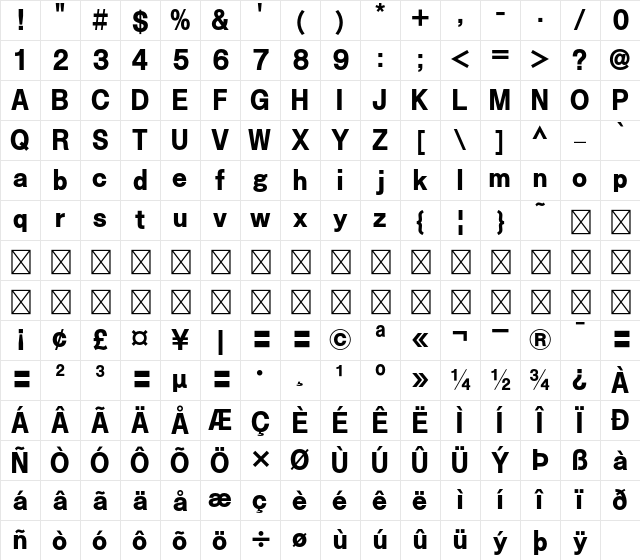
G-OTF Neotoday Std B-KL
Design Context for G-OTF Neotoday Std
G-OTF Neotoday Std is a composed and adaptable typeface that performs quietly and consistently across a wide range of design contexts.
Pro Tip: Use G-OTF Neotoday Std in both headline and body roles to test its range before committing to a single application.